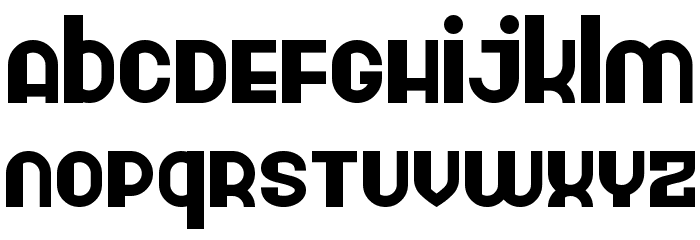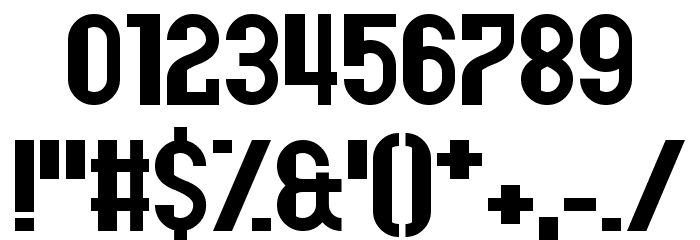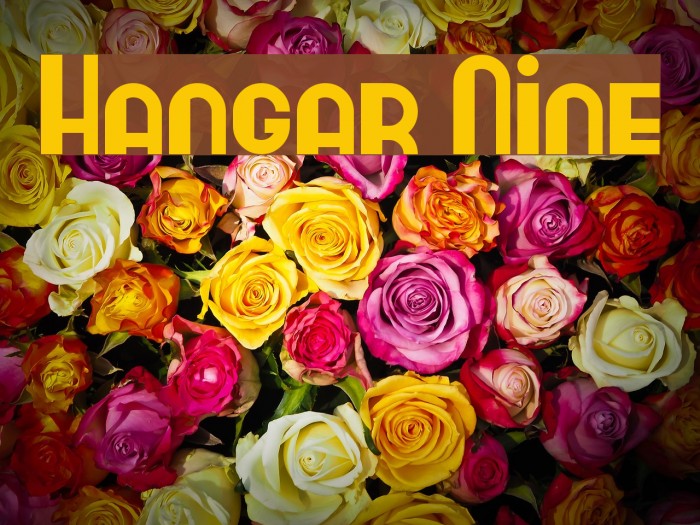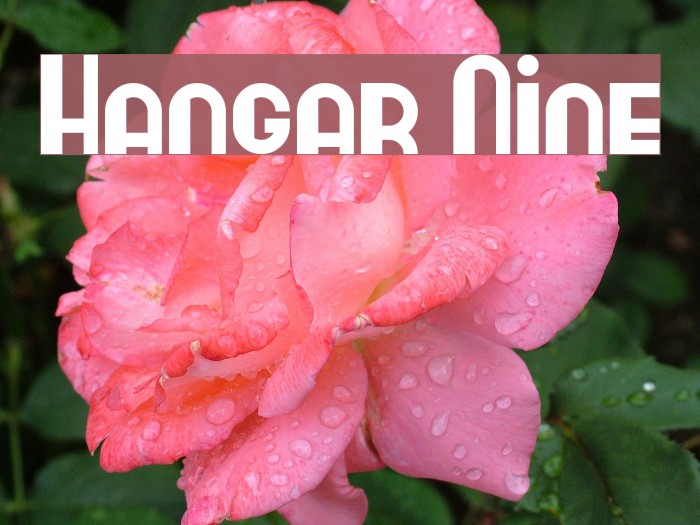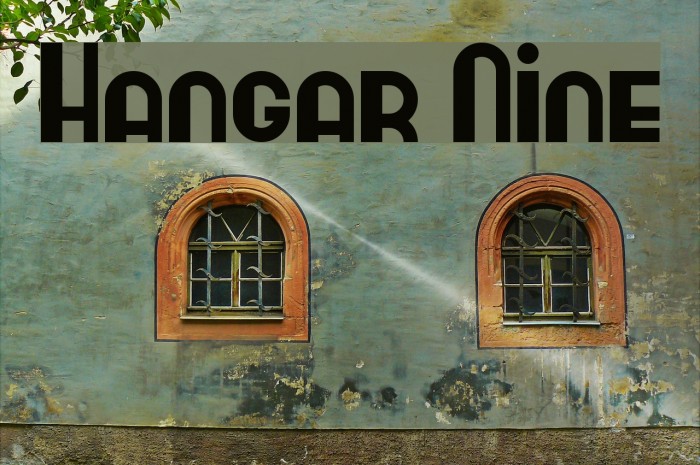
Hangar Nine Font
This font features a bold and geometric design with a distinctively modern and industrial feel. The characters are constructed with uniform stroke widths, creating a strong and cohesive appearance. The uppercase and lowercase letters maintain a consistent height, contributing to a clean and organized look. The numerals and special characters are designed to match the boldness of the alphabet, ensuring a harmonious overall style. The font's unique structure is characterized by its rounded edges and straight lines, making it suitable for contemporary and innovative design projects.
A bold, geometric font with a modern, industrial aesthetic.